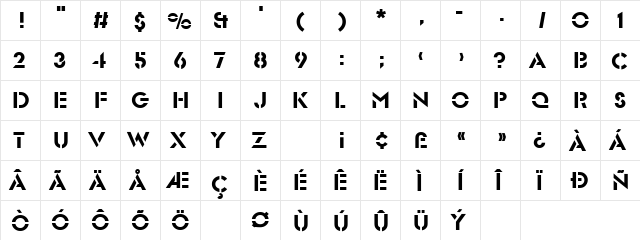
GlaserBroken Regular
Design Context for GlaserBroken Typeface
GlaserBroken is a composed and adaptable typeface that performs quietly and consistently across a wide range of design contexts.